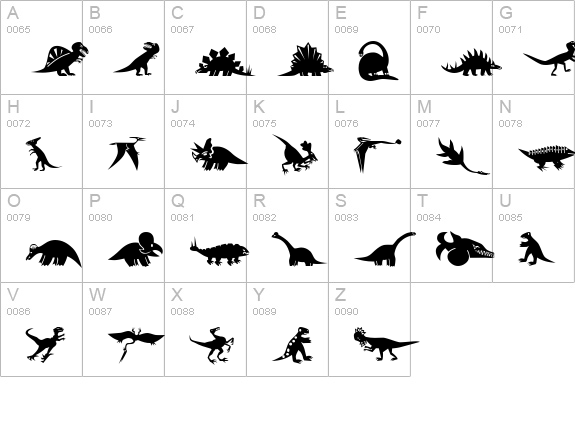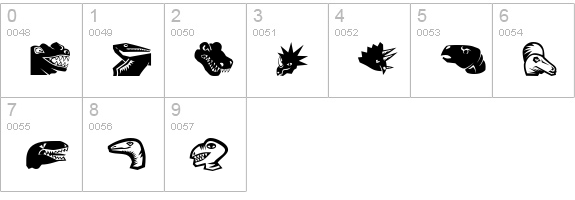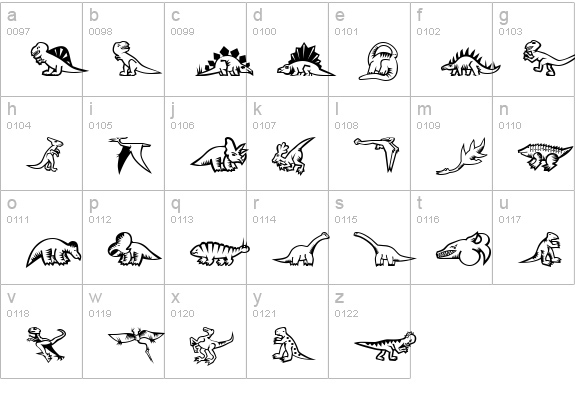
Mini Pics Lil Dinos Font Details
Mini Pics Lil Dinos font is a fun and playful typeface that brings a touch of whimsy to any design project. This adorable font features cute dinosaur illustrations incorporated into each letter, making it perfect for children's books, party invitations, and other creative projects. The unique and eye-catching design of Mini Pics Lil Dinos font is sure to capture the attention of your audience and add a delightful charm to your work. The best part is that Mini Pics Lil Dinos font is available for free download at FontsMarket.com, making it accessible to all designers looking to add a touch of prehistoric fun to their creations. Don't miss out on this charming and playful font that is sure to bring a smile to your face and delight to your designs. Download Mini Pics Lil Dinos font today and let your creativity roam free!